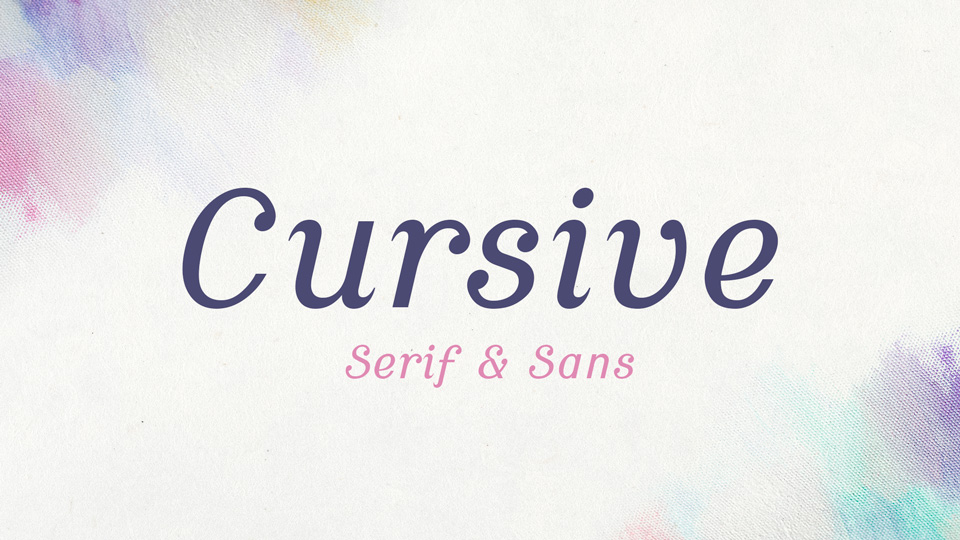
Download Cursive typeface, an elegant font family of Sans and Serif fonts. Cursive fonts work great for texts, cards, letters, wedding and feminine designs and other beautiful projects.
Designer: Wojciech Kalinowski